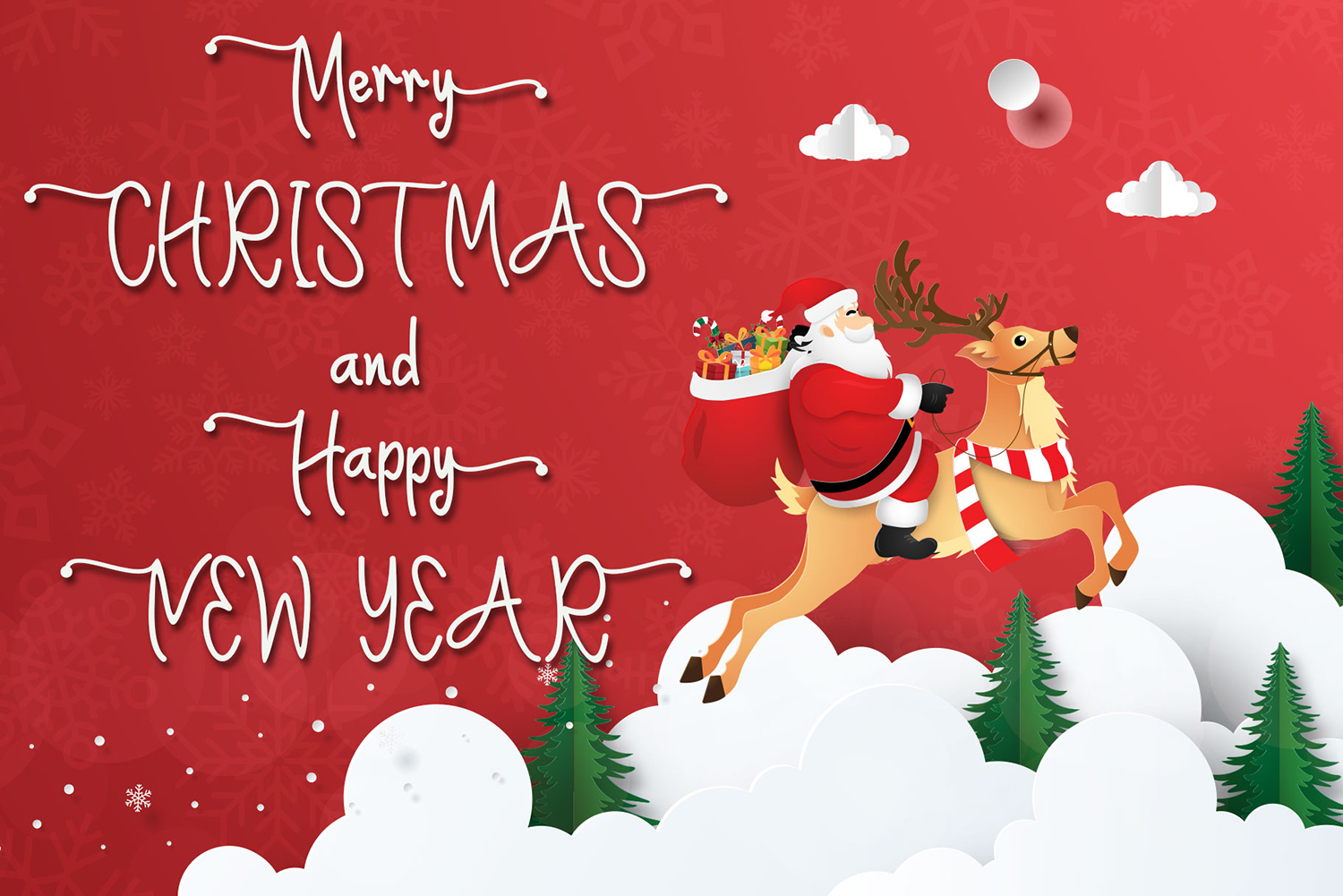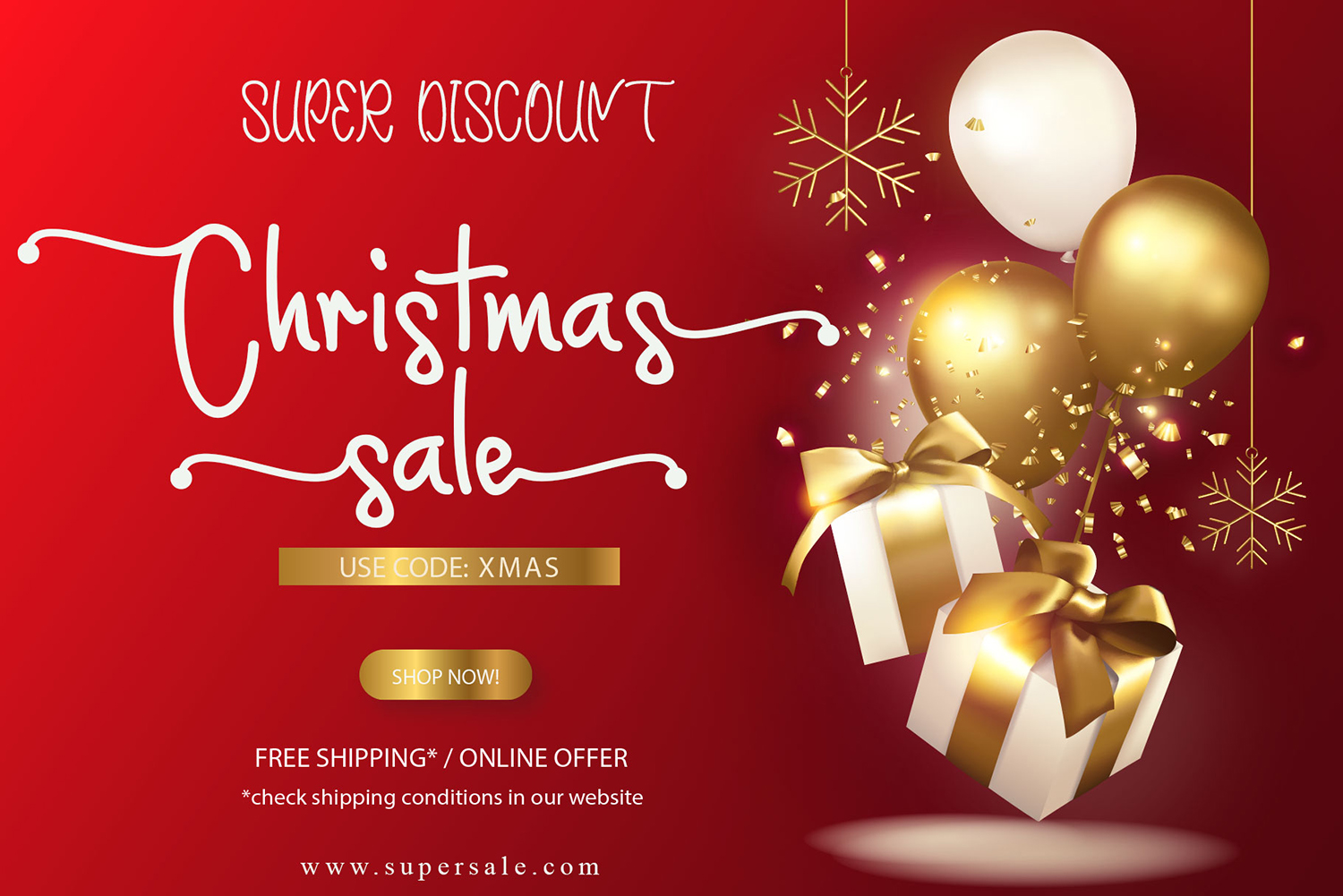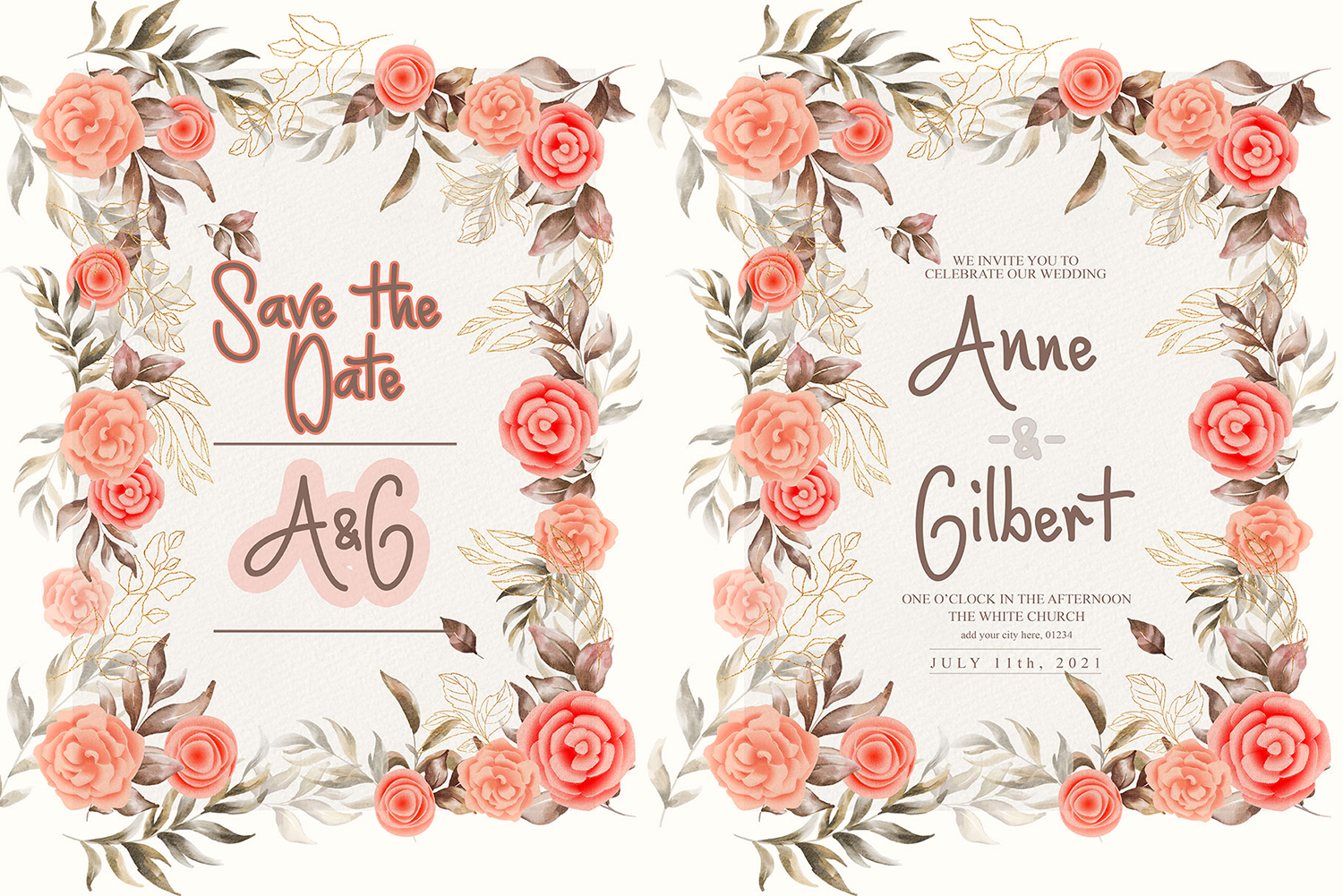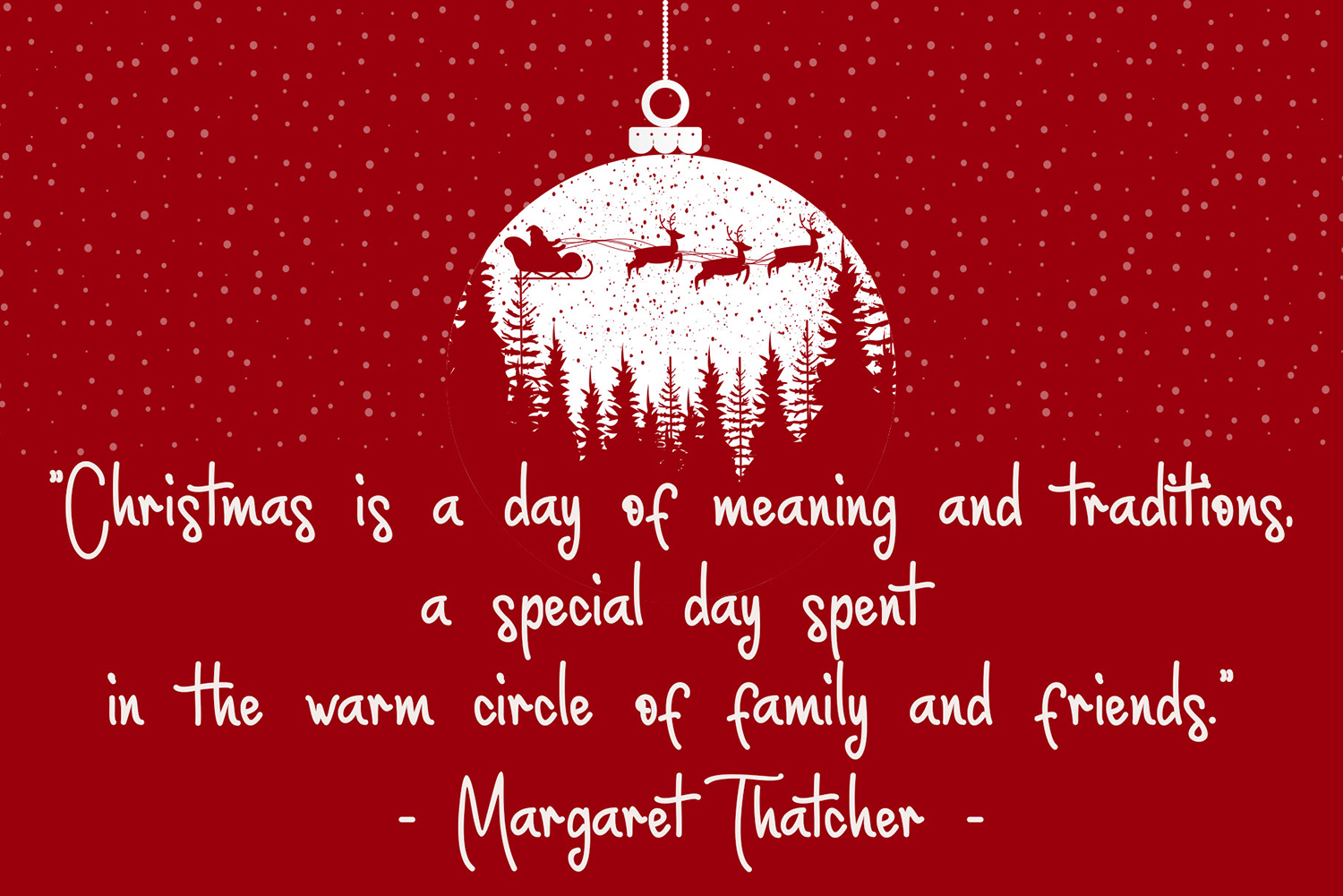
Santa Reindeer Free Font
Santa Reindeer Free Font is a cute lettered and festive script font. This free typeface was designed by a talentedย Harjuno Kristanto. If you like it donโ€™t forget to check out the full version.